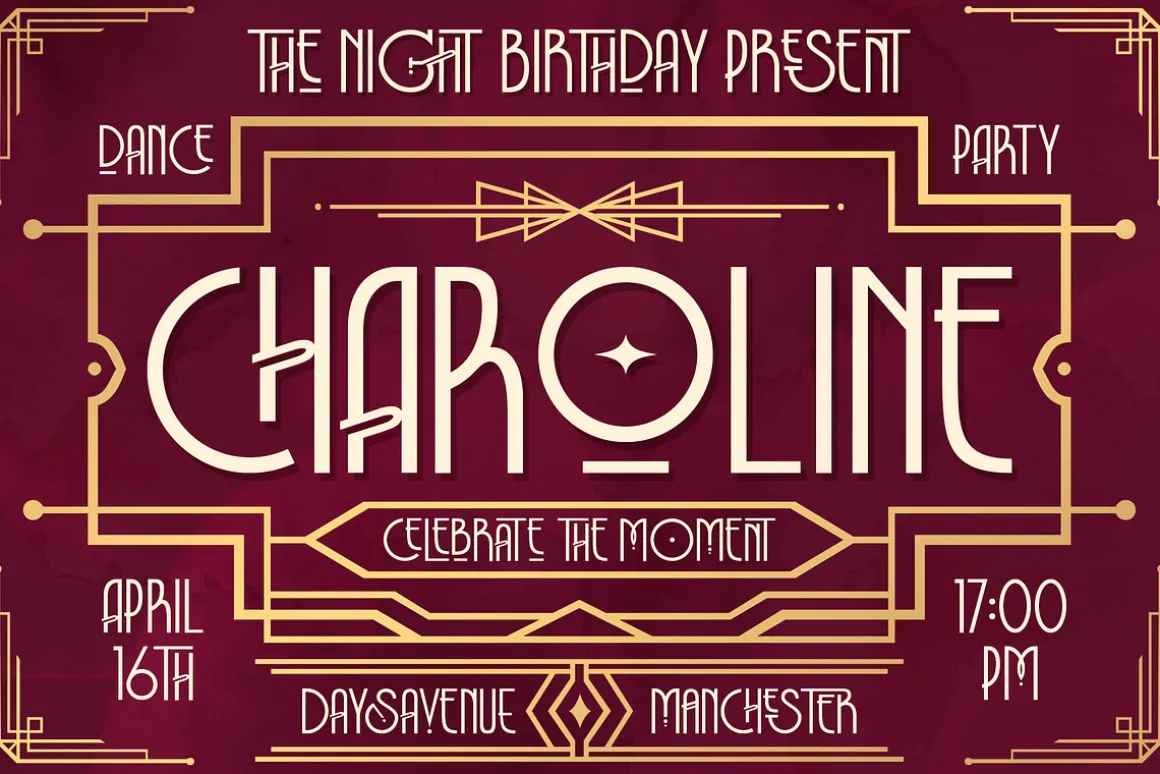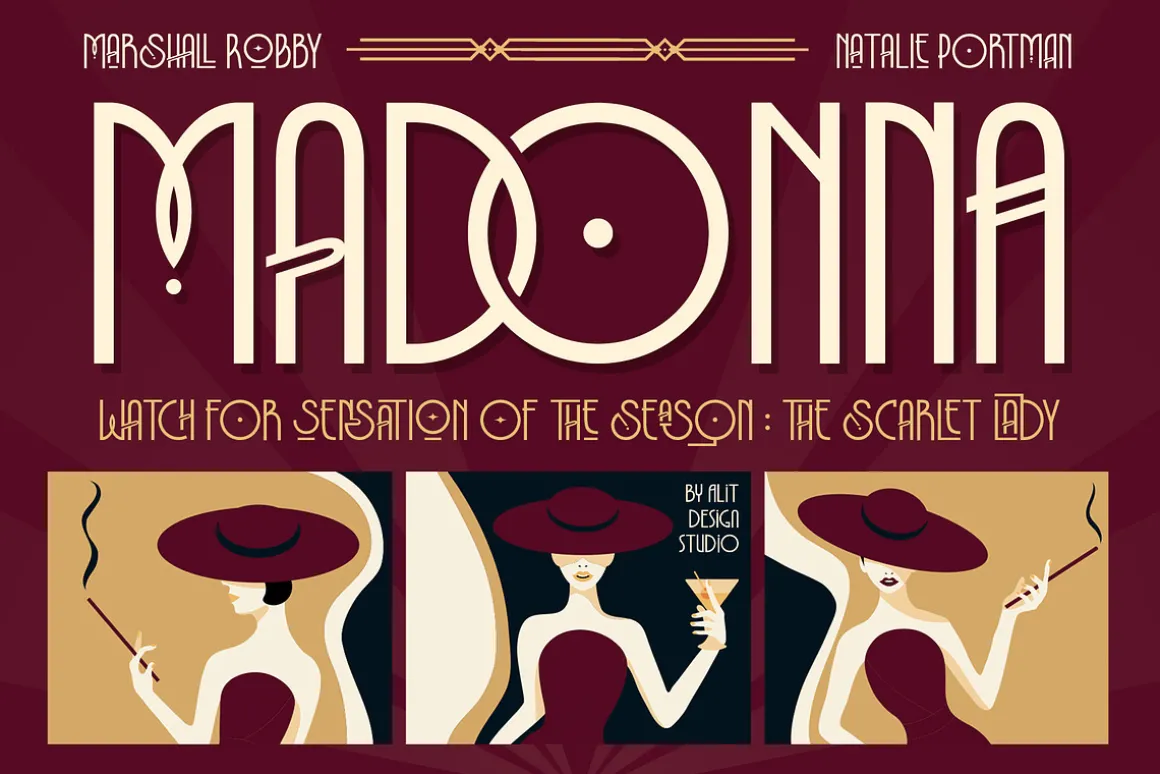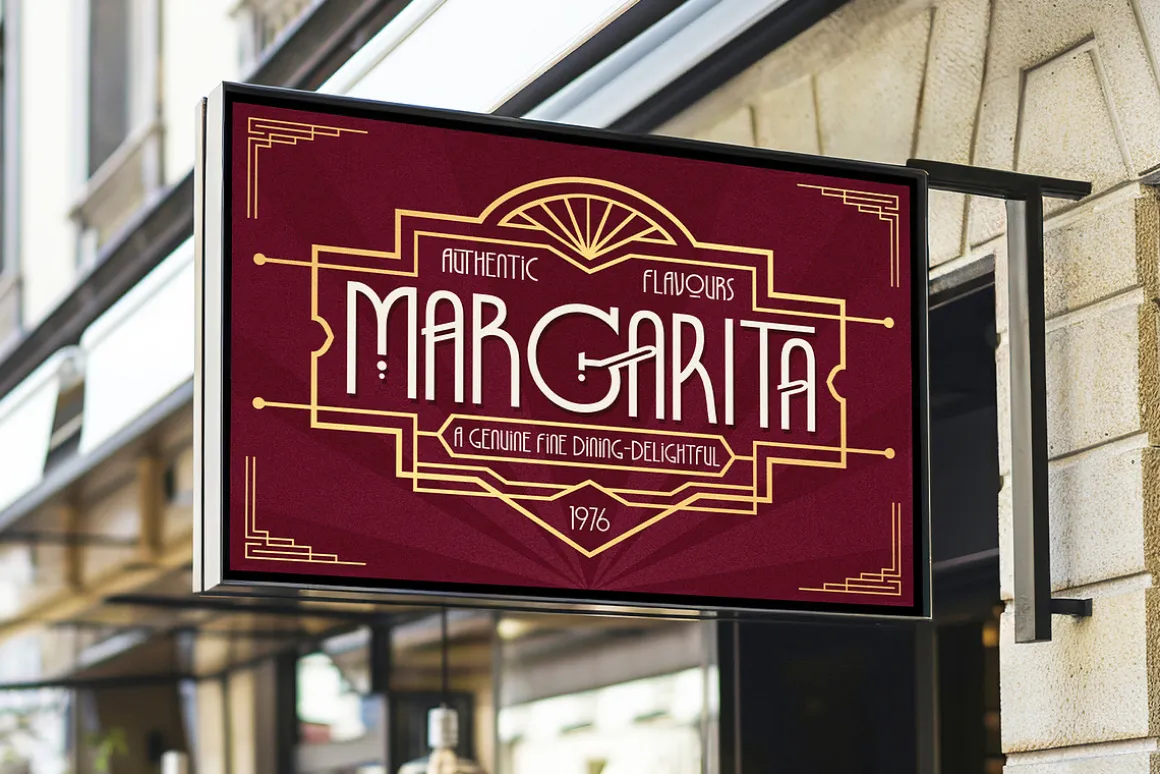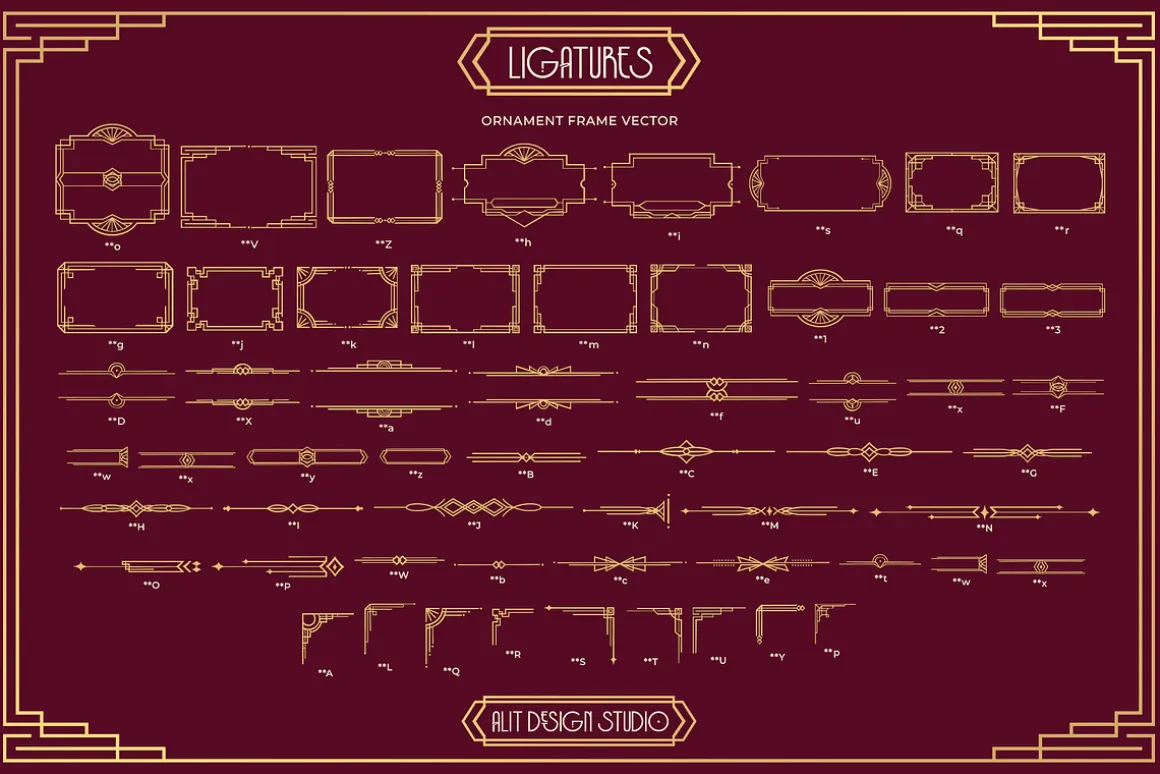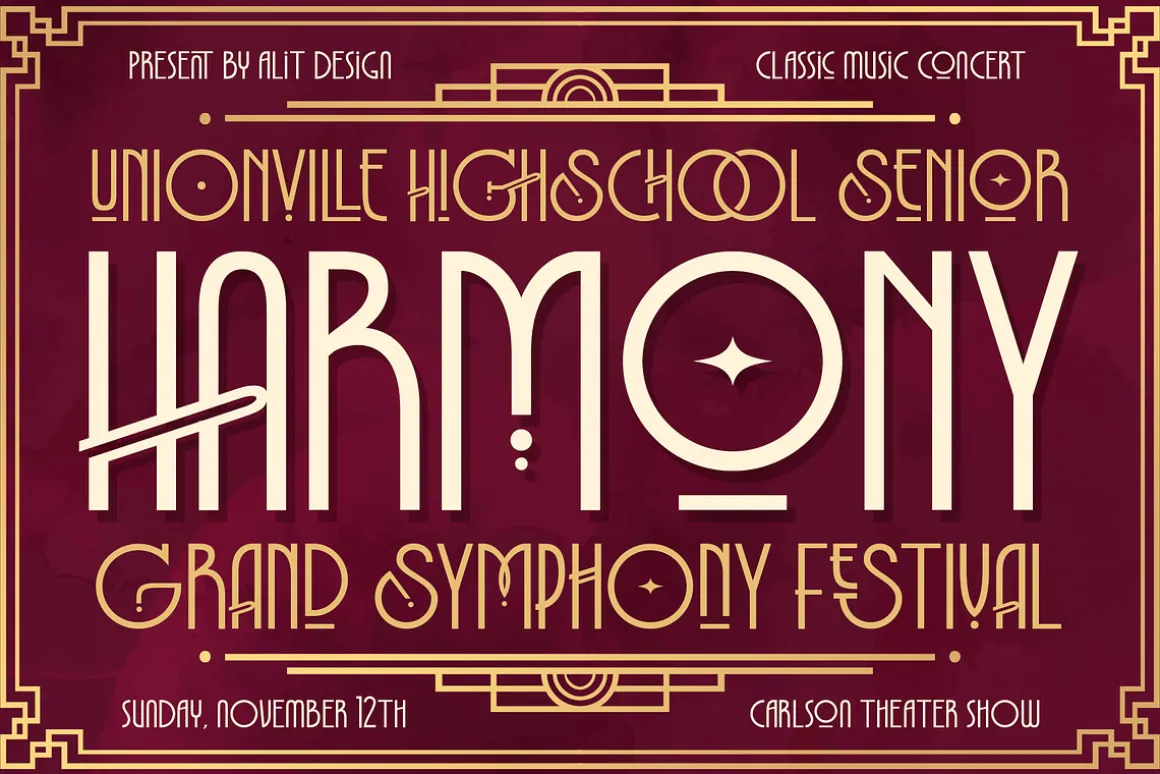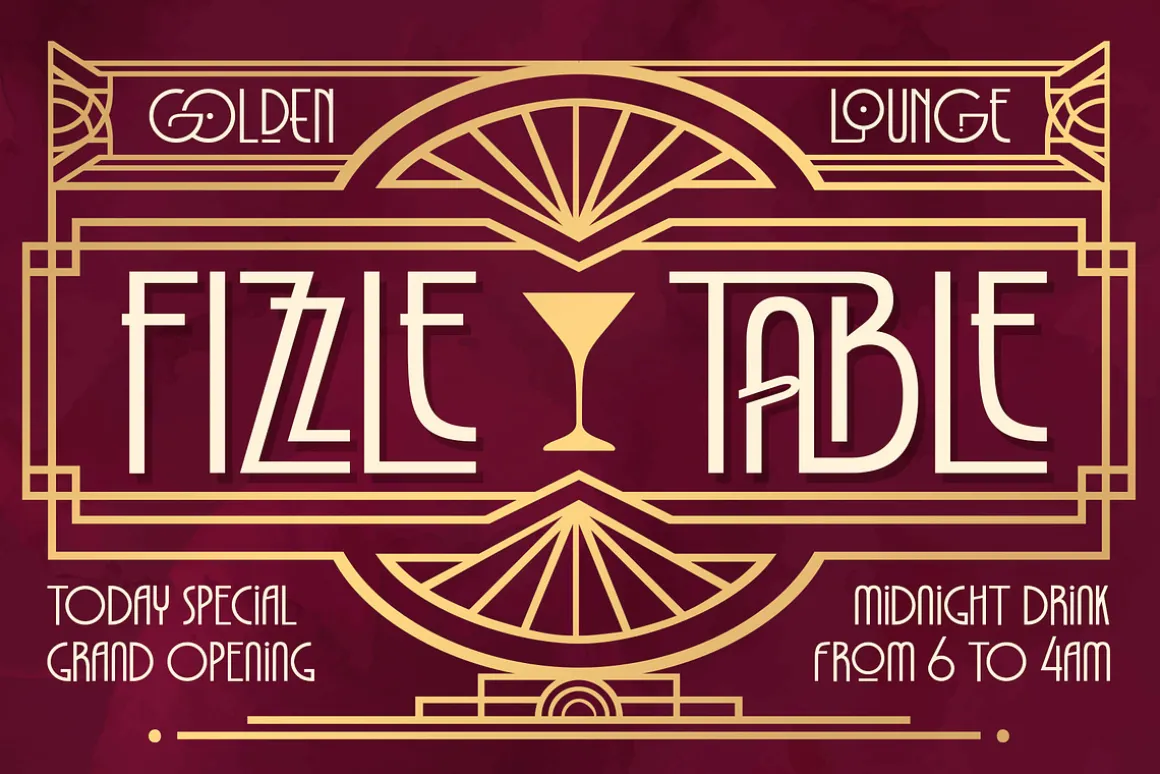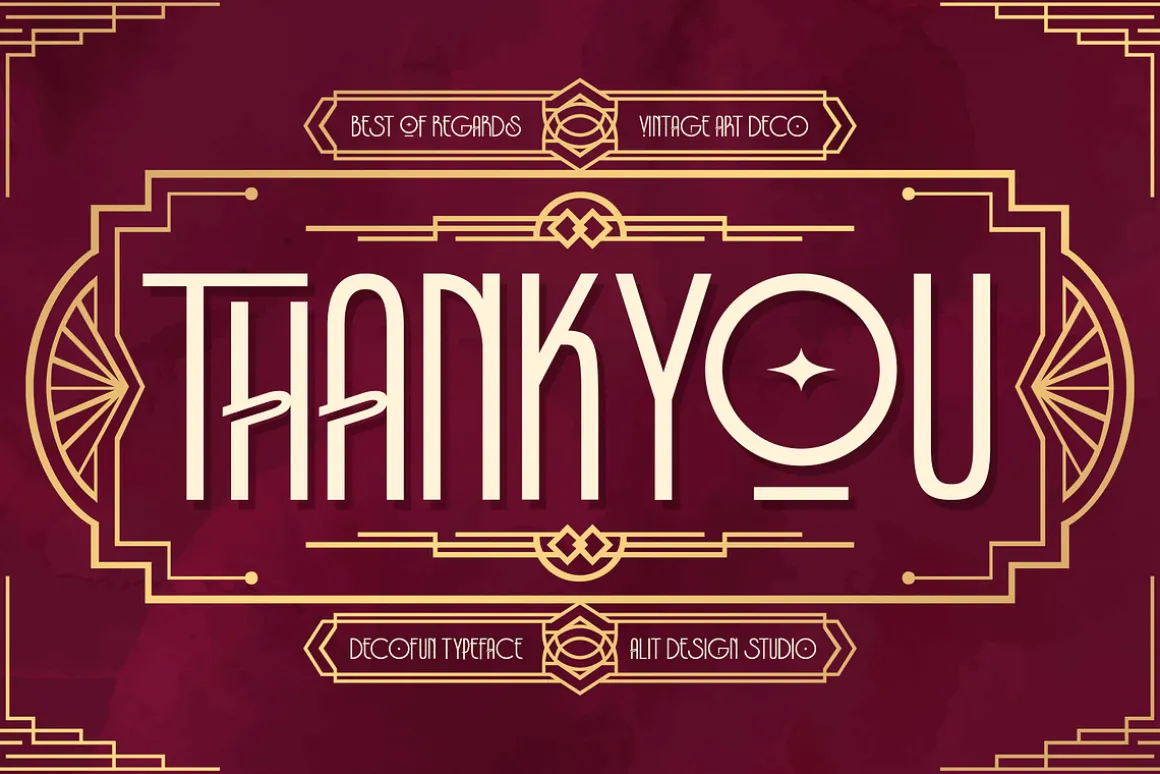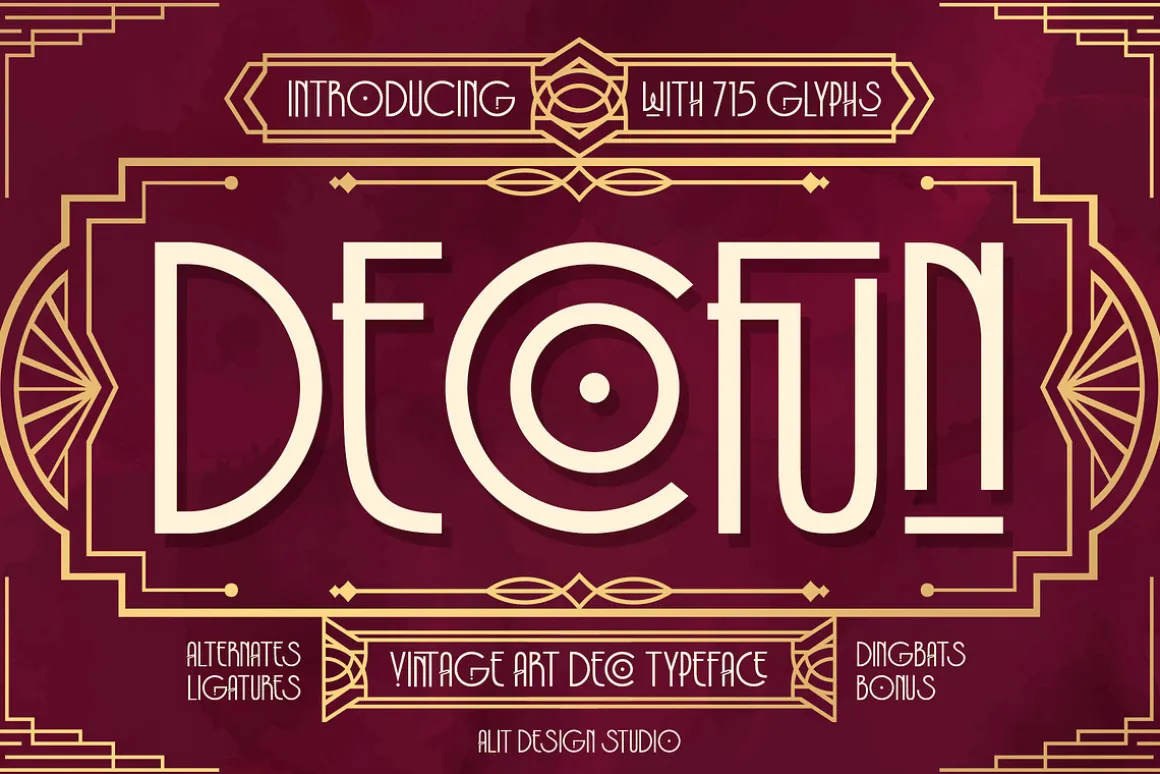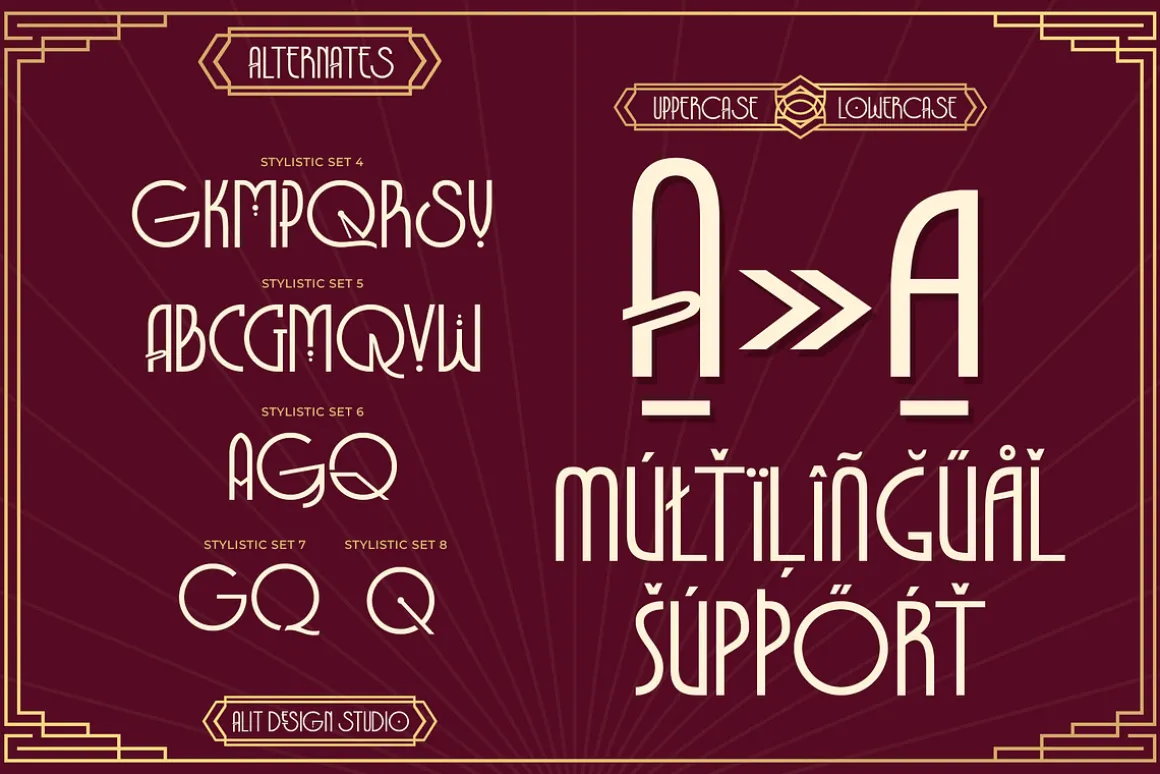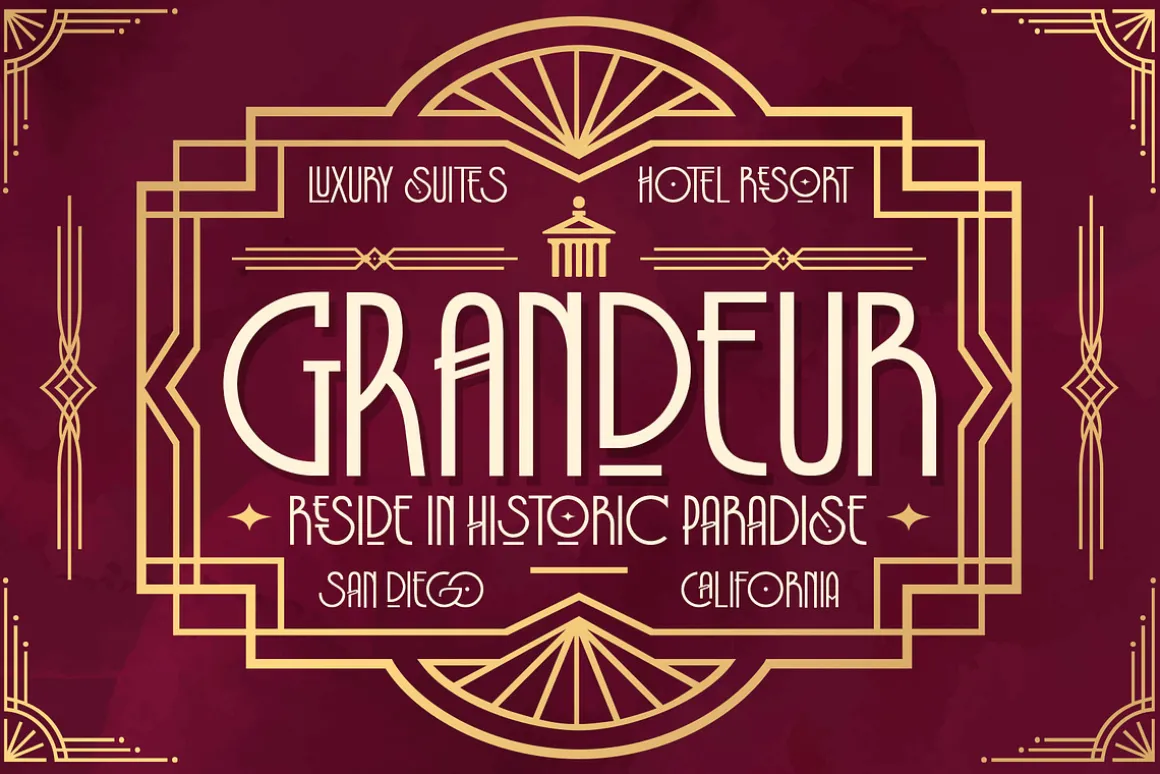
Decofun Typeface
Where Modern Elegance Meets Dynamic Design
Decofun Typeface is a vibrant celebration of modern Art Deco aesthetics, meticulously designed to bring a touch of timeless sophistication and bold creativity to your projects. With its unique and dynamic shapes, Decofun reimagines the glamour of the Art Deco era in a contemporary form, making it the perfect choice for striking headlines, logos, invitations, and more.
Key Features:
- 715 Characters: An extensive library of characters ensures versatility for all your design needs.
- Alternate Styles: Unlock fresh perspectives with alternate characters that add variety and flair.
- Elegant Ligatures: Seamless connections between characters create a polished and professional appearance.
- Multilingual Support: Includes a wide range of characters to support multiple languages, catering to global audiences.
Decofun Typeface brings a harmonious blend of geometry and fluidity, empowering you to craft designs that are as bold and innovative as your vision. Whether you’re designing luxury branding or playful packaging, Decofun adds that extra sparkle of modern artistry to make your work unforgettable.